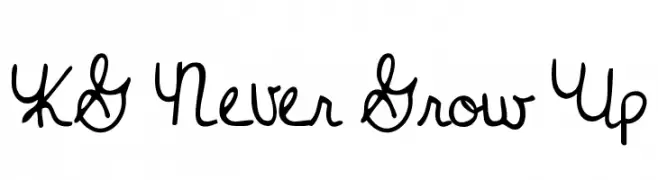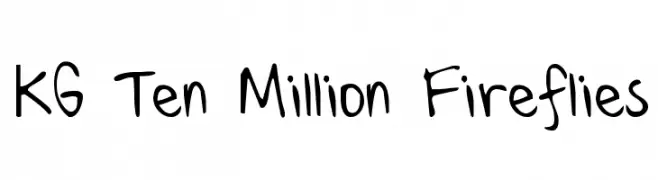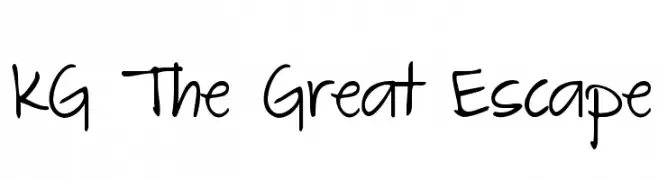
A bold, distressed font with a vintage stamp-like appearance.
A bold, rounded block font with a playful, retro style.
A lively handwritten font with fluid strokes and playful character.
A distressed, vintage-style font with a hand-crafted appearance.
A playful, casual handwritten font with a friendly and informal style.
A playful, informal handwritten font with smooth, flowing lines and a cohesive appearance.
A dynamic and flowing script font with elegant, interconnected strokes.
A playful, whimsical handwritten font with irregular strokes and a casual vibe.
A playful, handwritten font with a youthful and whimsical style.
A playful, hand-drawn font with bold, irregular strokes.